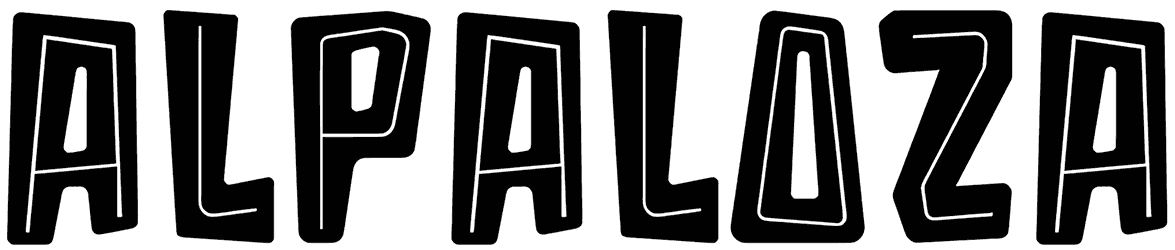
Alpaloza Font
Alpaloza is a cartoon font that has a squarish appearance. You may use this fancy font for everything, including logos, blog headlines, branding, poster designs, and more.